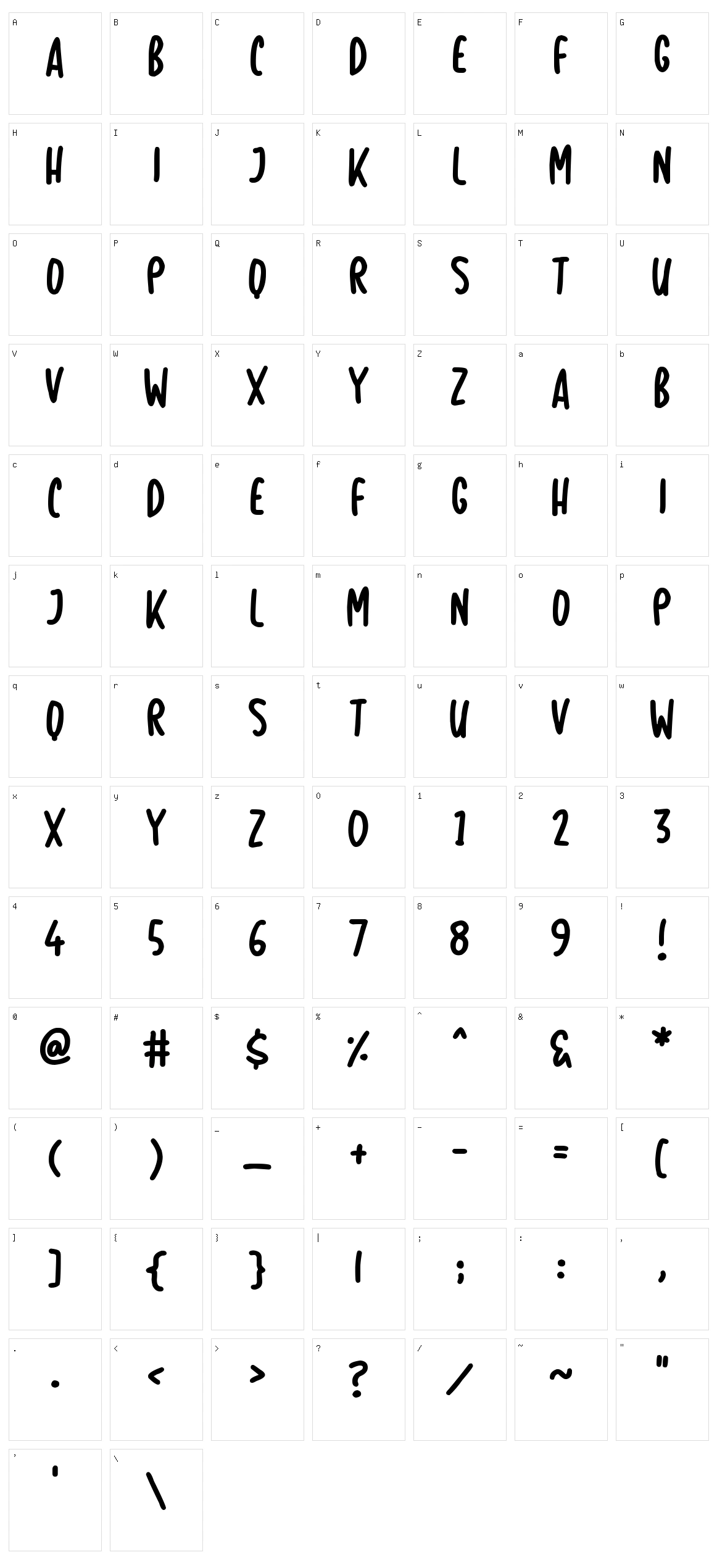
The free font Simply Be is carefully designed by Hawtpixel, showcasing a thoughtful balance of creativity and usability and falls under the Script font style. When you download the ZIP file, it contains only 69.12 KB of font files, making it lightweight and quick to download. Please review the license details below to understand permitted usage and distribution rights. If license information is not available, we recommend using this font for personal projects only or contacting the author directly for commercial usage permissions.